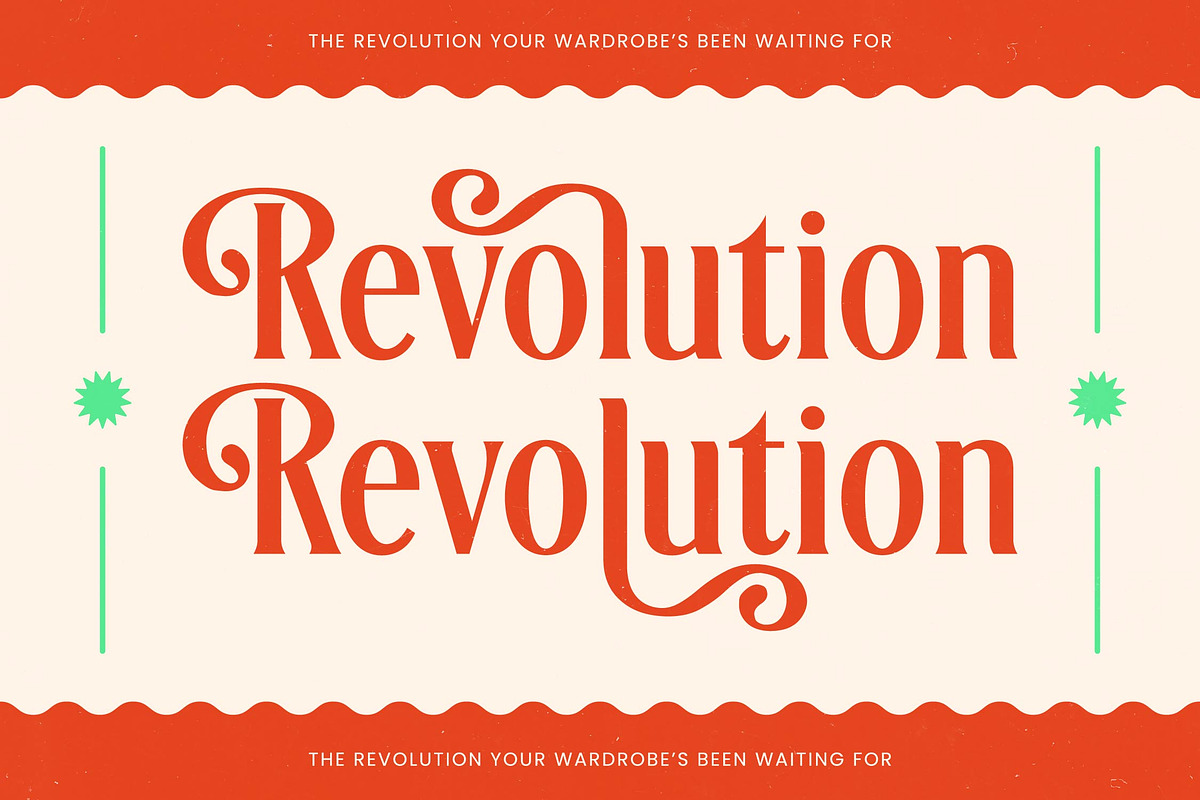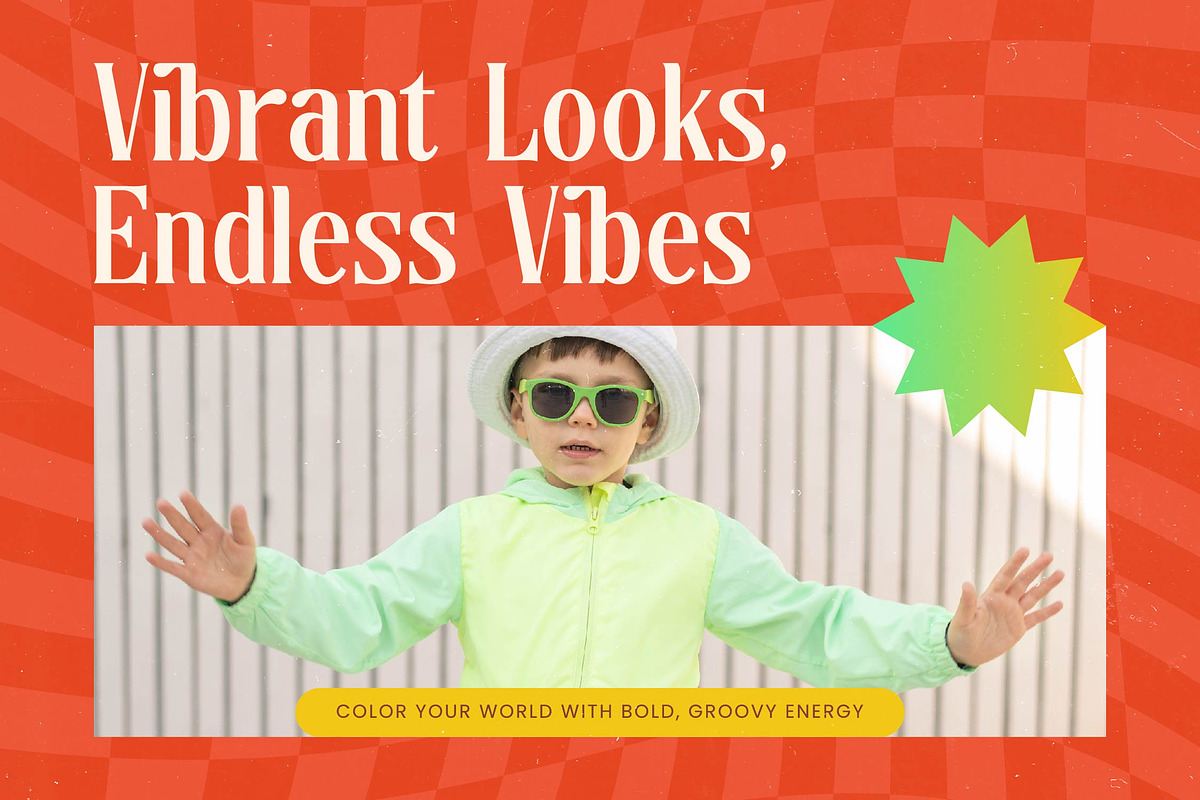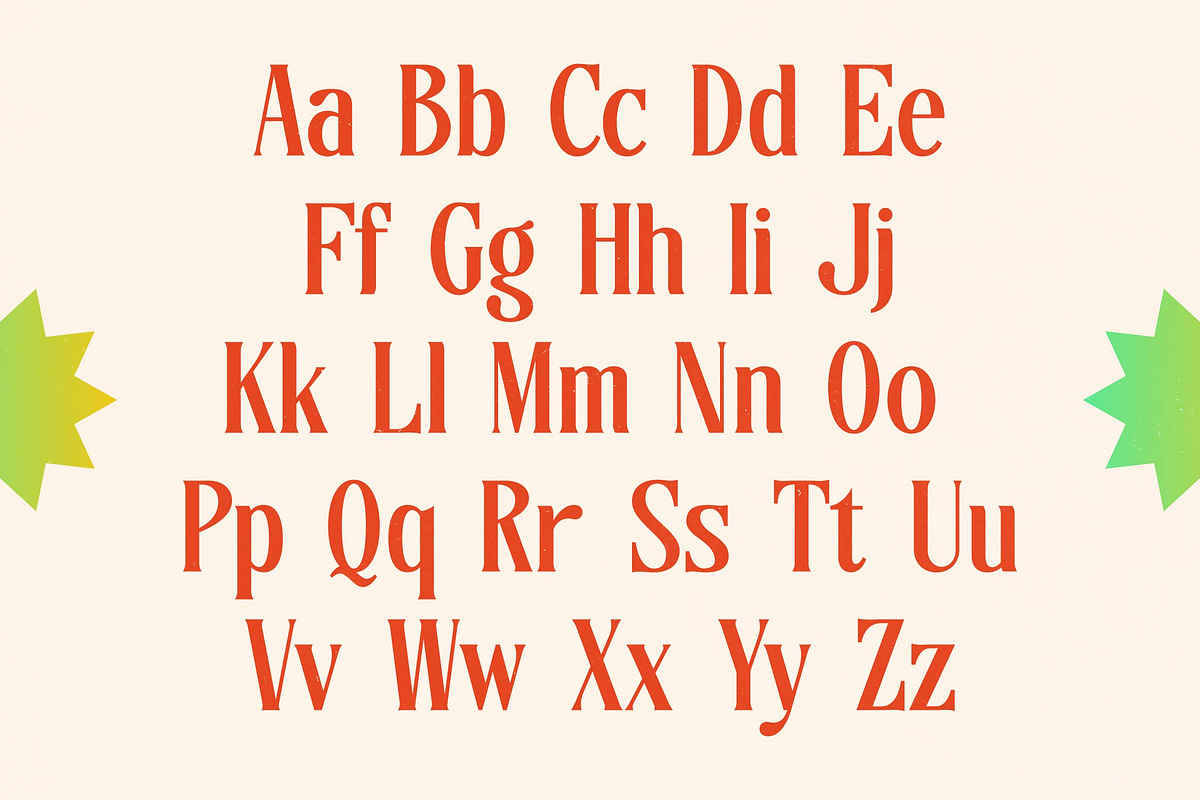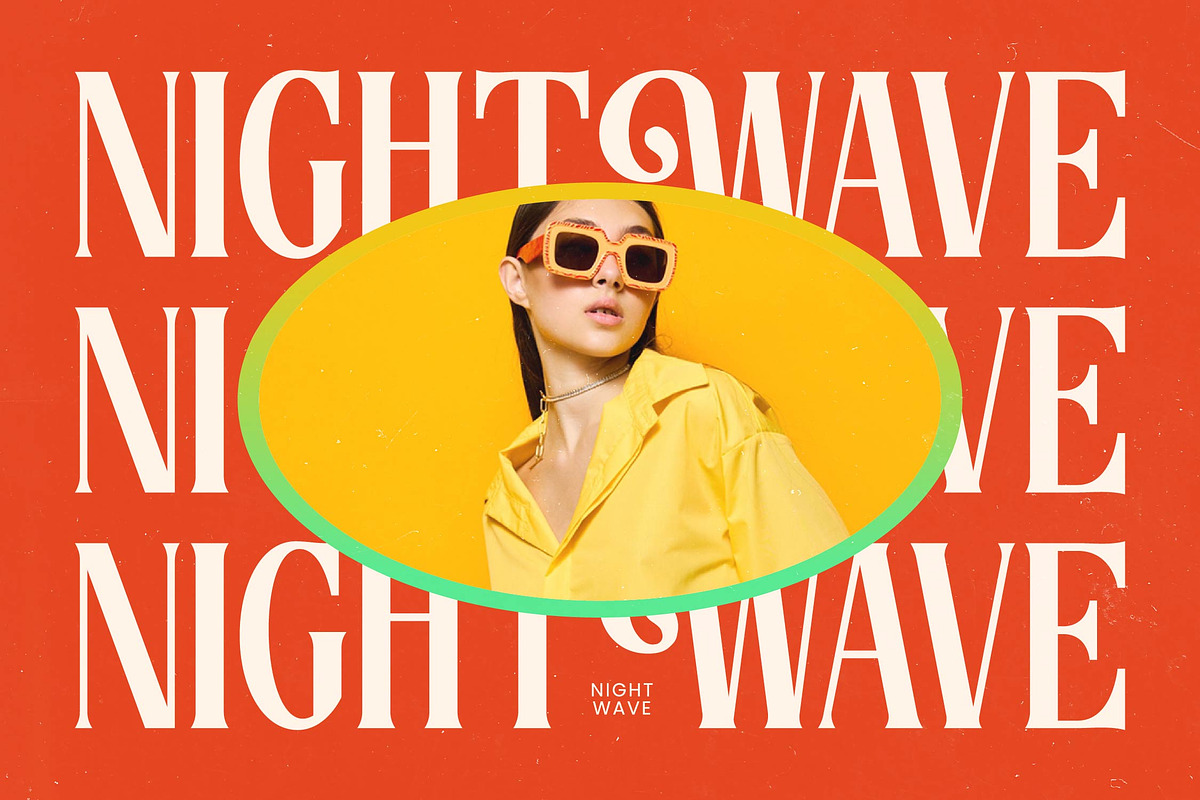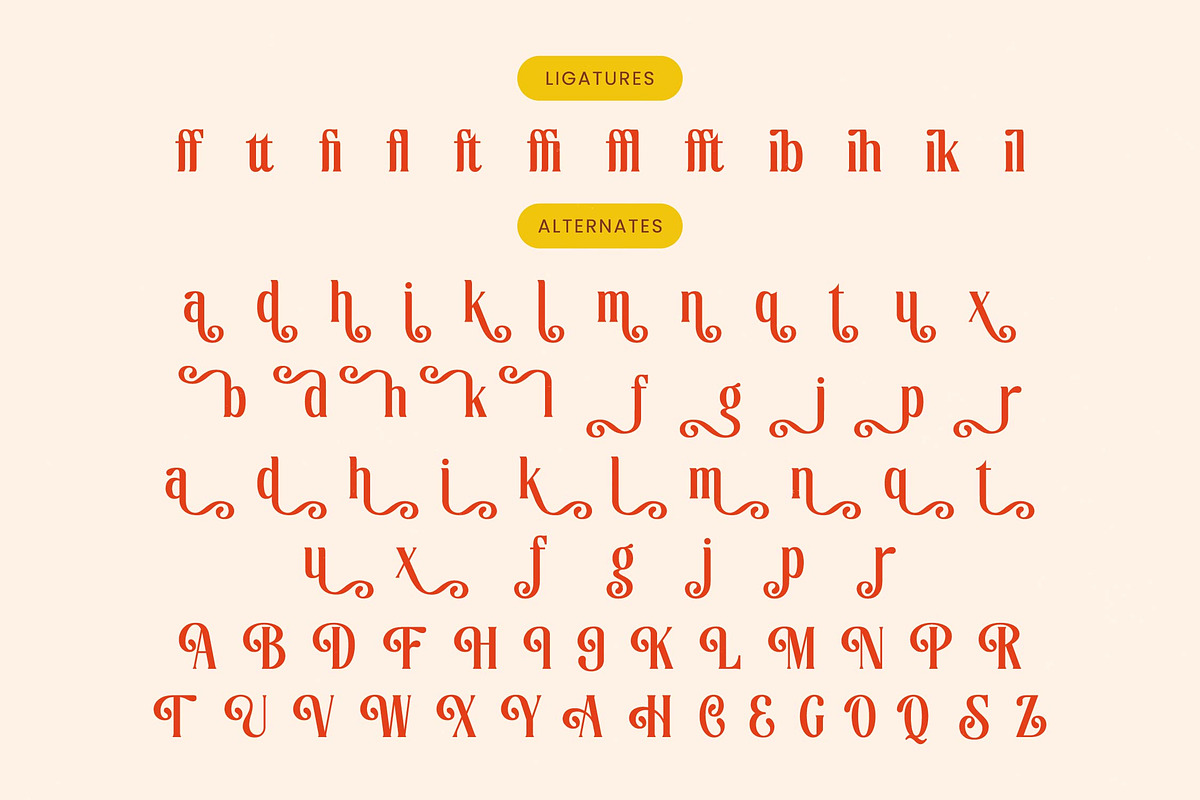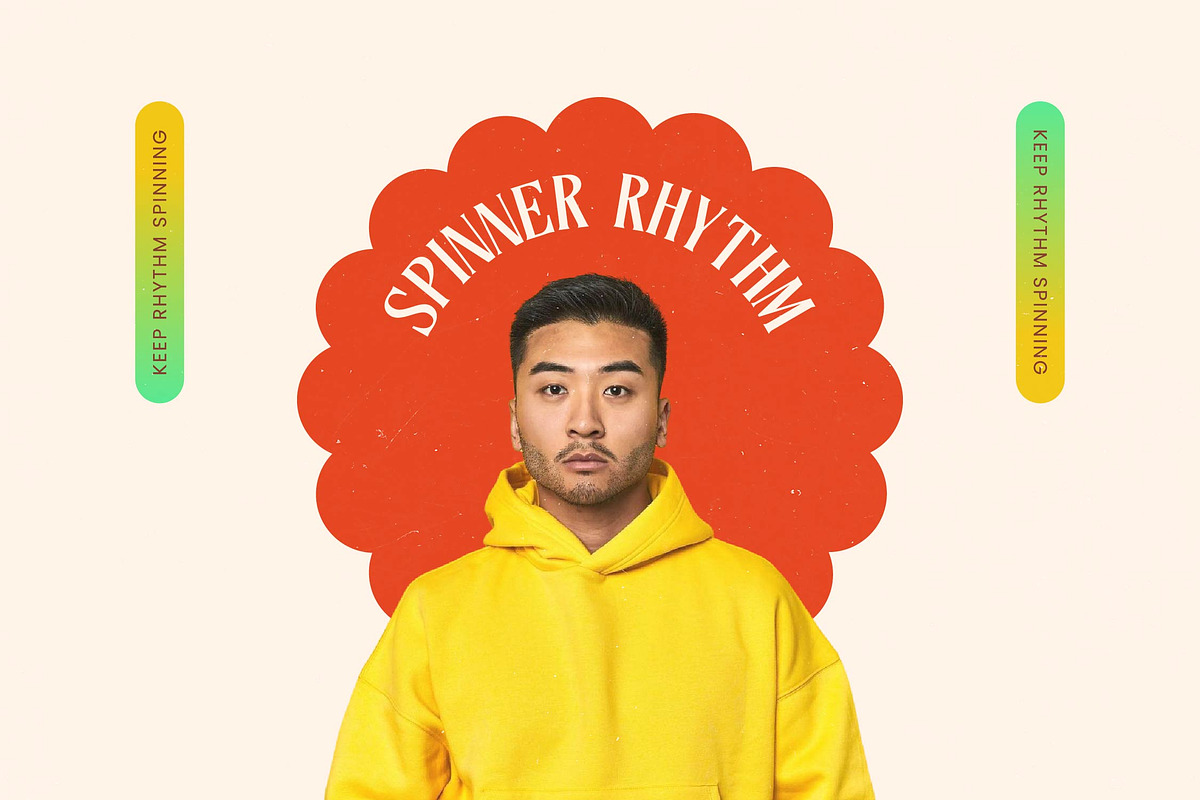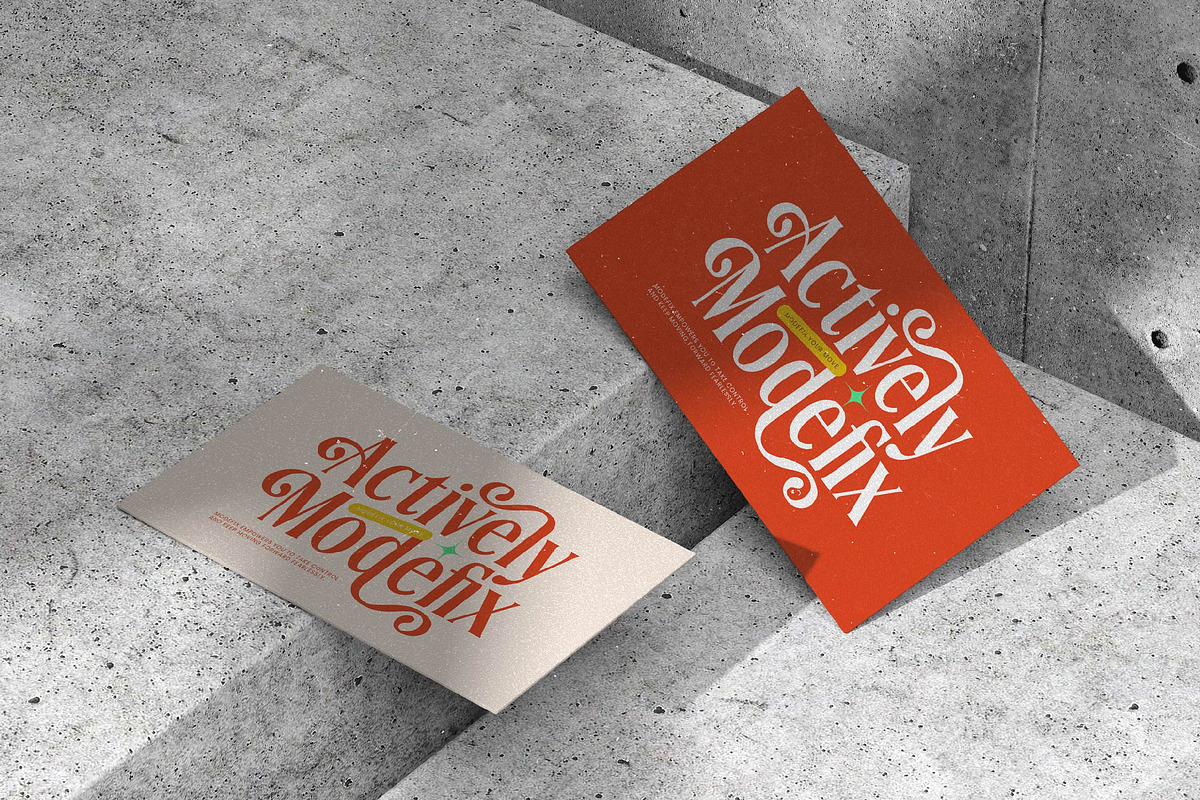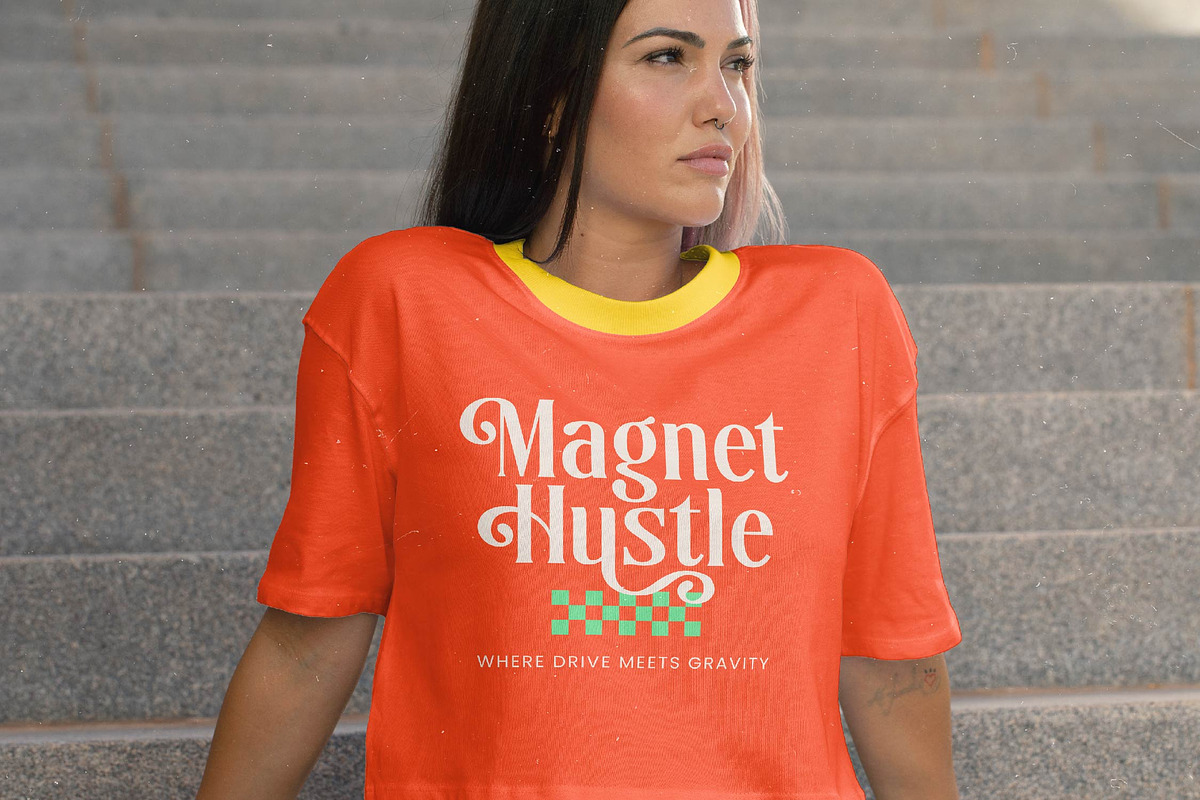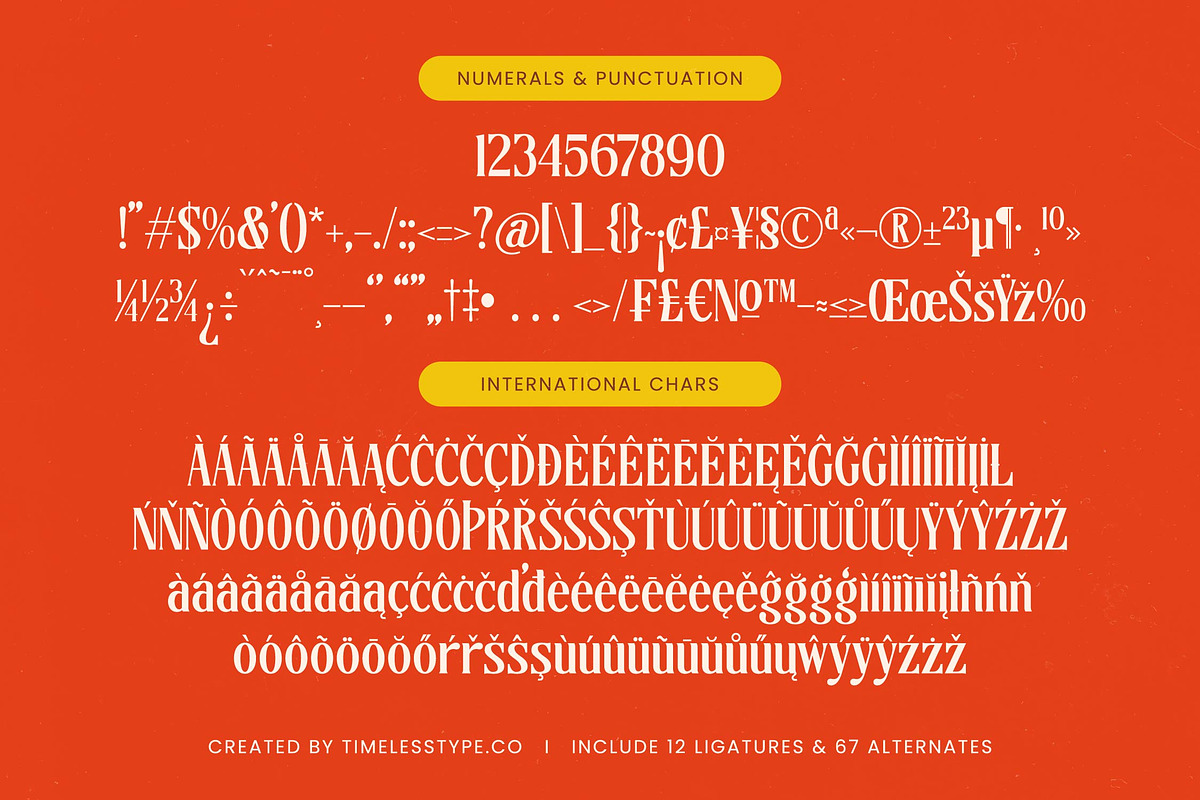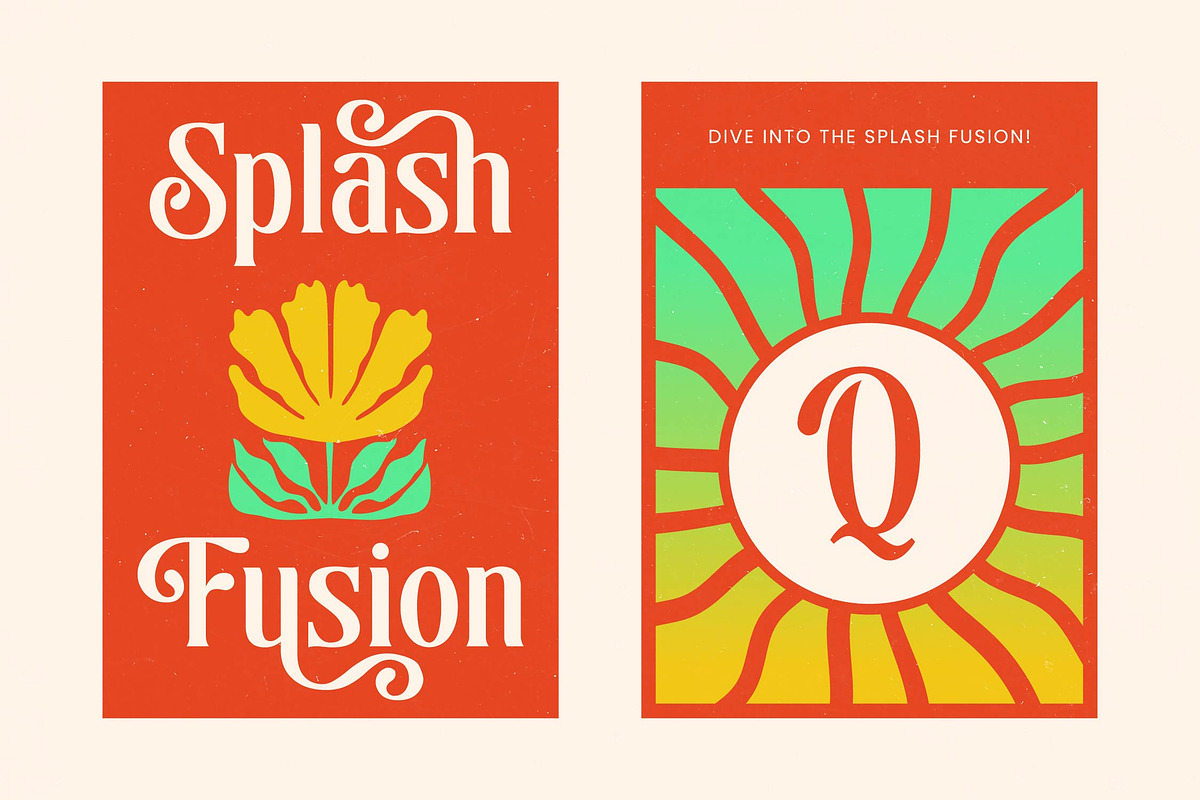
Sunkis Groovy Retro Display Font
Sunkis captures the essence of golden hour warmth through its impeccably crafted curves and expressive personality. This font is a love letter to high-end design, blending nostalgia with a contemporary edge that commands attention immediately.
Drawing inspiration from the vibrant disco era and mid-century editorial layouts, this typeface evokes a sense of sun-drenched sophistication. It balances the playful energy of the 1970s with a refined, professional finish suitable for today's most prestigious projects.
The modern serif display features a luxury typography feel that is perfect for achieving a high-contrast serif look in any layout. Its bold presence serves as a powerful editorial font that ensures your branding impact remains unforgettable and distinct.
As the modern serif trend continues to dominate the creative landscape, Sunkis fits perfectly into the demand for editorial display fonts. Designers looking for character-driven typography will find this typeface to be a versatile and essential tool for staying ahead of visual shifts.
This font is an exceptional choice for logo design and comprehensive branding identity systems that require a touch of retro flair. It thrives in editorial layouts, luxury packaging, and bespoke wedding invitations, making it a staple for any high-end fashion campaign.
With over 409 glyphs, the set includes a generous selection of ligatures and alternates that allow for custom typographic flourishes. Beautiful swashes add movement to your text, while full multilingual support and international characters ensure global accessibility for your designs.
- Ligature 12 Alternate 67